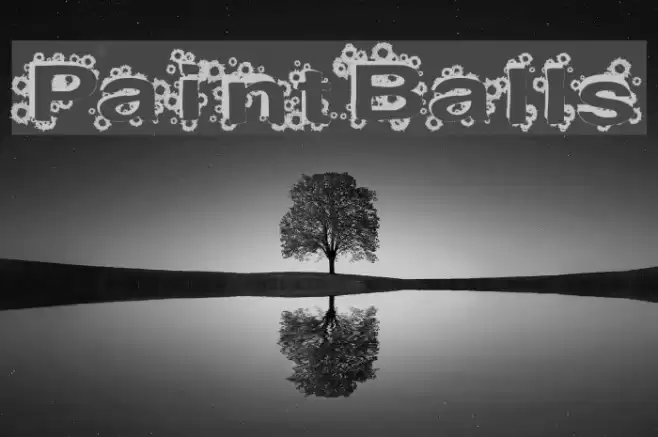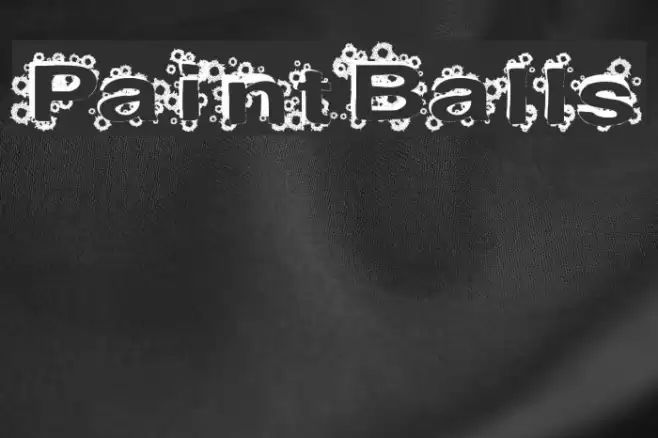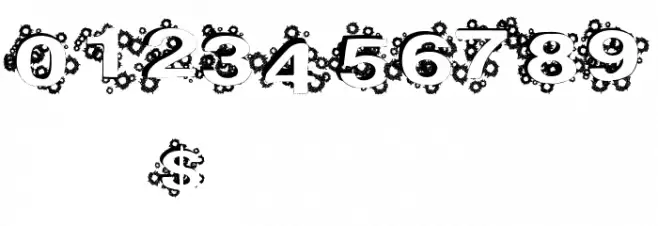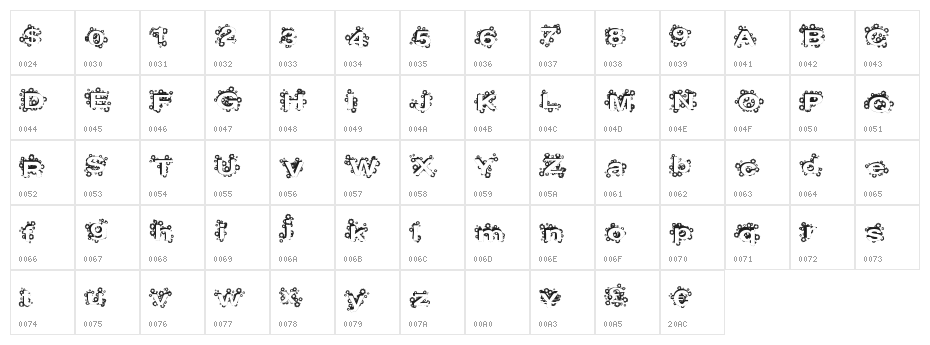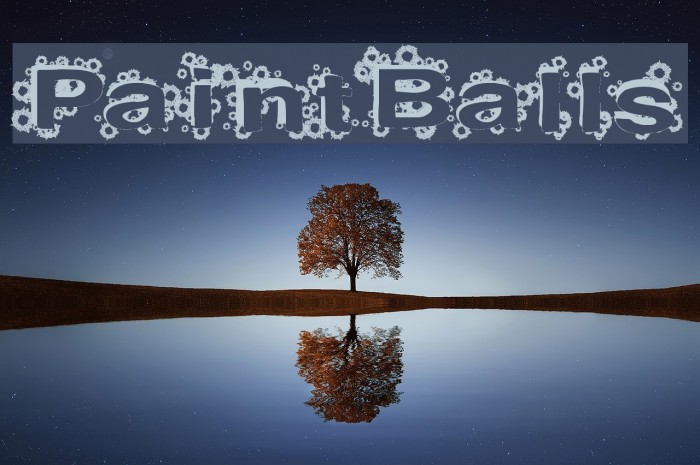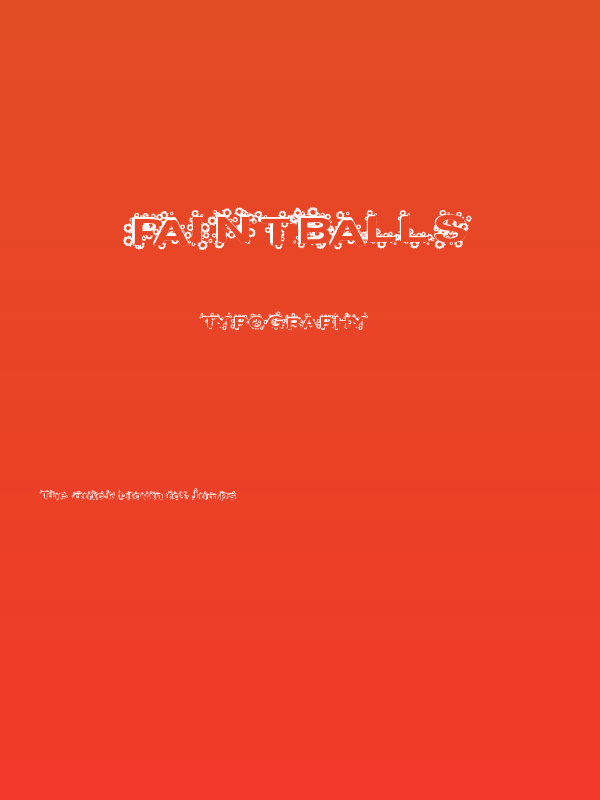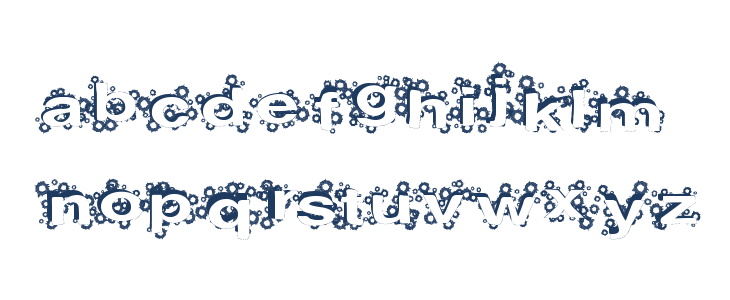
PaintBalls Font
PaintBalls Description
This font features a playful and dynamic design, characterized by a series of paint splatters and drips that form each letter and number. The overall appearance is bold and eye-catching, with a unique texture that mimics the effect of paintballs splattering on a surface. Each character is surrounded by irregular, organic shapes that add a sense of movement and energy. The font maintains legibility despite its decorative elements, making it suitable for creative and informal applications. The combination of uppercase, lowercase, numbers, and special characters ensures versatility in design projects.
A playful, paint-splattered font with a bold and dynamic style from bubble letter fonts.